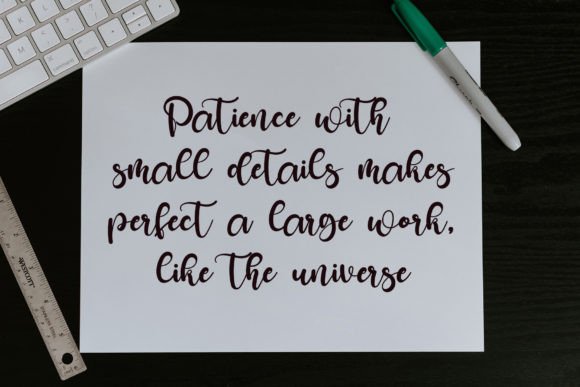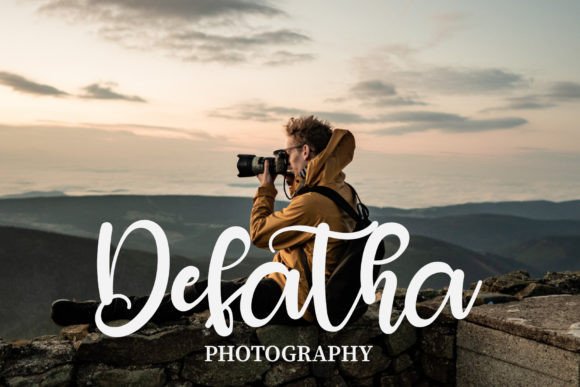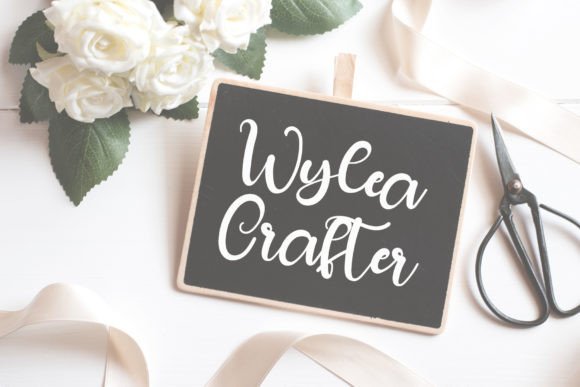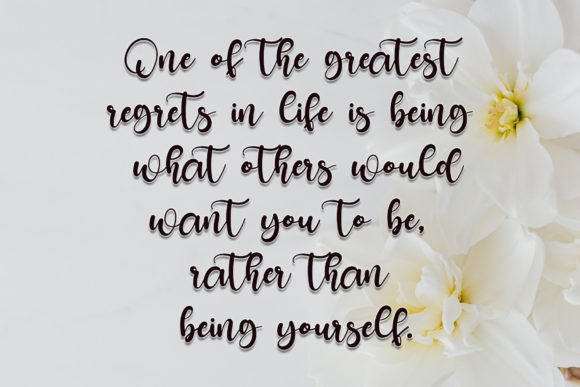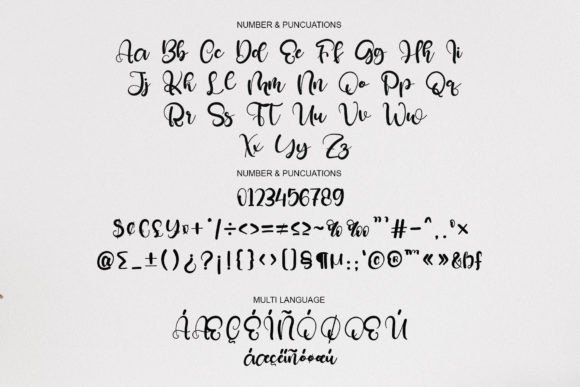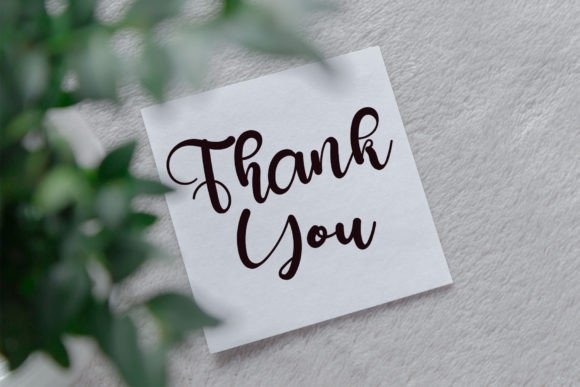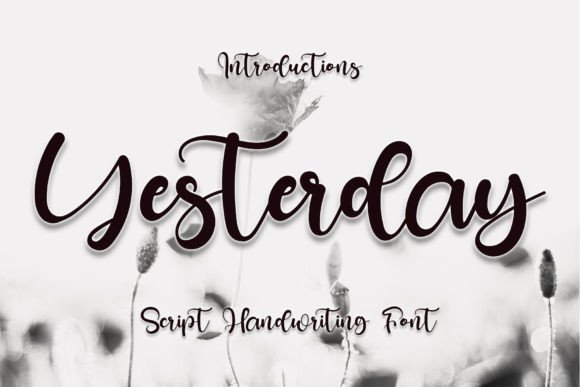
Yesterday Font
About Yesterday Font
Yesterday Font is a stylish handwritten typeface that combines the classic elegance of timeless calligraphy with a modern, contemporary flair. Designed with impeccable form and well-balanced strokes, it enhances the beauty of your creative projects. Whether you’re working on wedding invitations, branding, or social media graphics, Yesterday adds a refined and elegant touch that makes your designs stand out.
Classic Calligraphy with a Modern Twist
Inspired by traditional calligraphy, Yesterday updates this classic style with smooth, flowing lines and varied stroke weights. This balance between old and new gives it a unique personality that is both artistic and highly readable. It’s an excellent choice for designers who want to add sophistication while maintaining clarity.
Ideal Uses for Yesterday Font
Yesterday works wonderfully in a variety of design projects such as:
• Wedding invitations and save-the-date cards
• Luxury brand logos and packaging
• Editorial layouts and magazine covers
• Social media graphics and digital promotions
• Personalized event signage and stationery
Its versatile style elevates any project with a touch of class and grace.
Why Choose Yesterday Font?
Designers appreciate Yesterday for:
• Balanced and varied strokes inspired by classic calligraphy
• Clear readability at various sizes and formats
These features make Yesterday both a practical and beautiful font for many creative needs.
Add Elegance and Personality to Your Designs
Typography is a key part of your design’s mood. Yesterday Font allows you to express  romance, and timeless beauty. Whether you’re creating wedding stationery or branding luxury products, it adds a sophisticated and personal feel to your work.
In summary, Yesterday Font is an elegant and stylish handwritten script that blends classic charm with modern appeal. It’s perfect for designers looking to add a polished, refined touch to weddings, and creative projects. Add Yesterday to your font collection and create  designs full of grace.